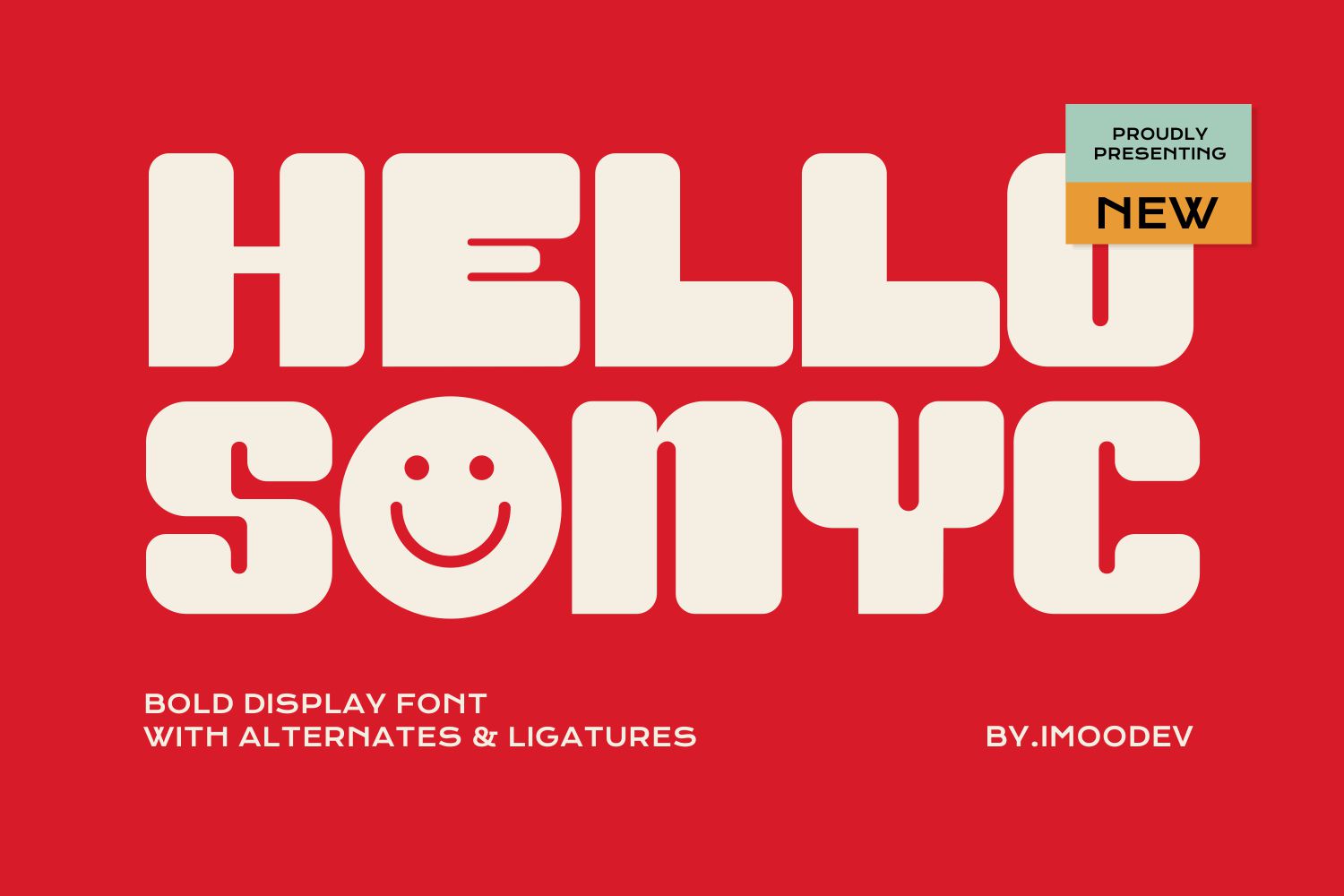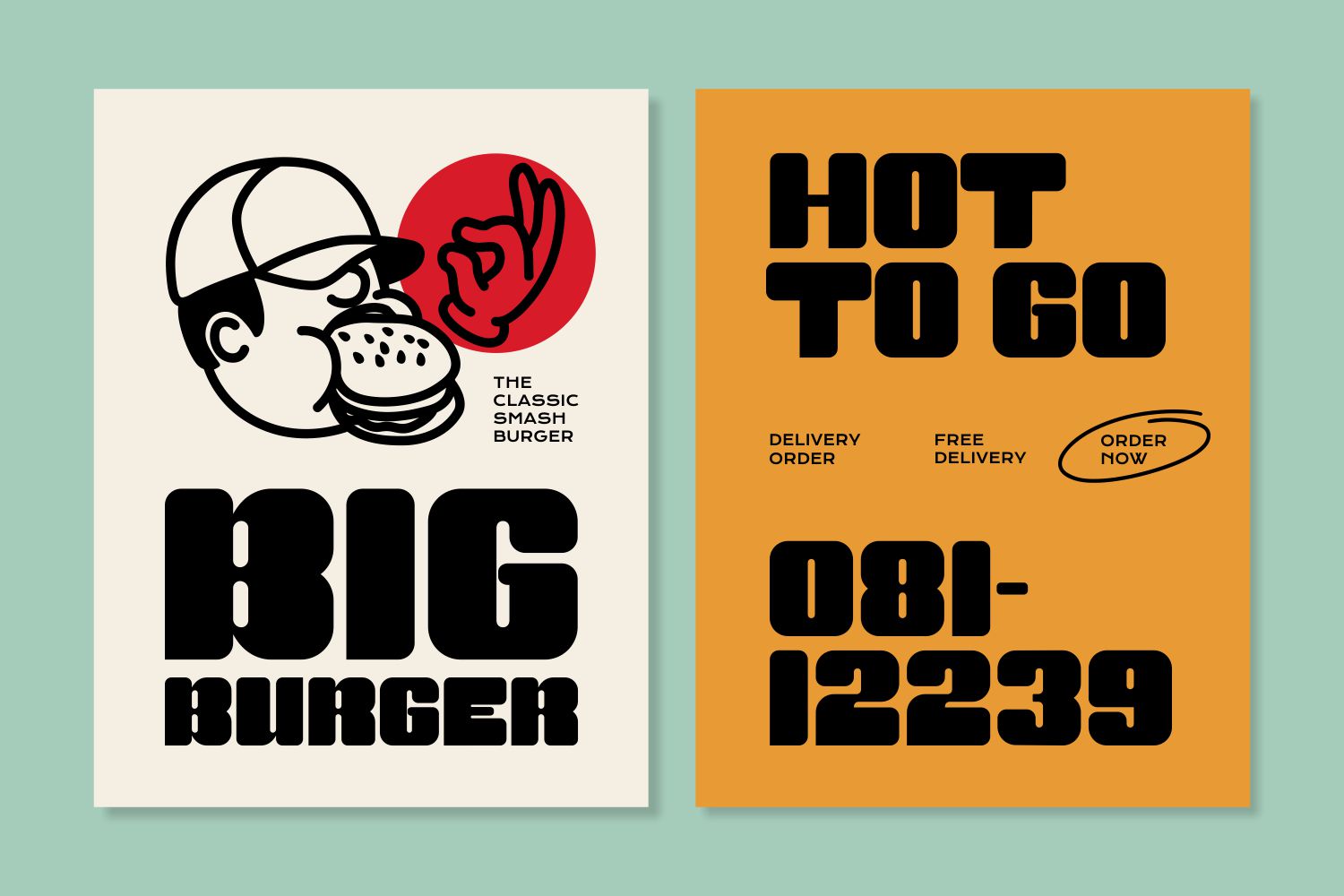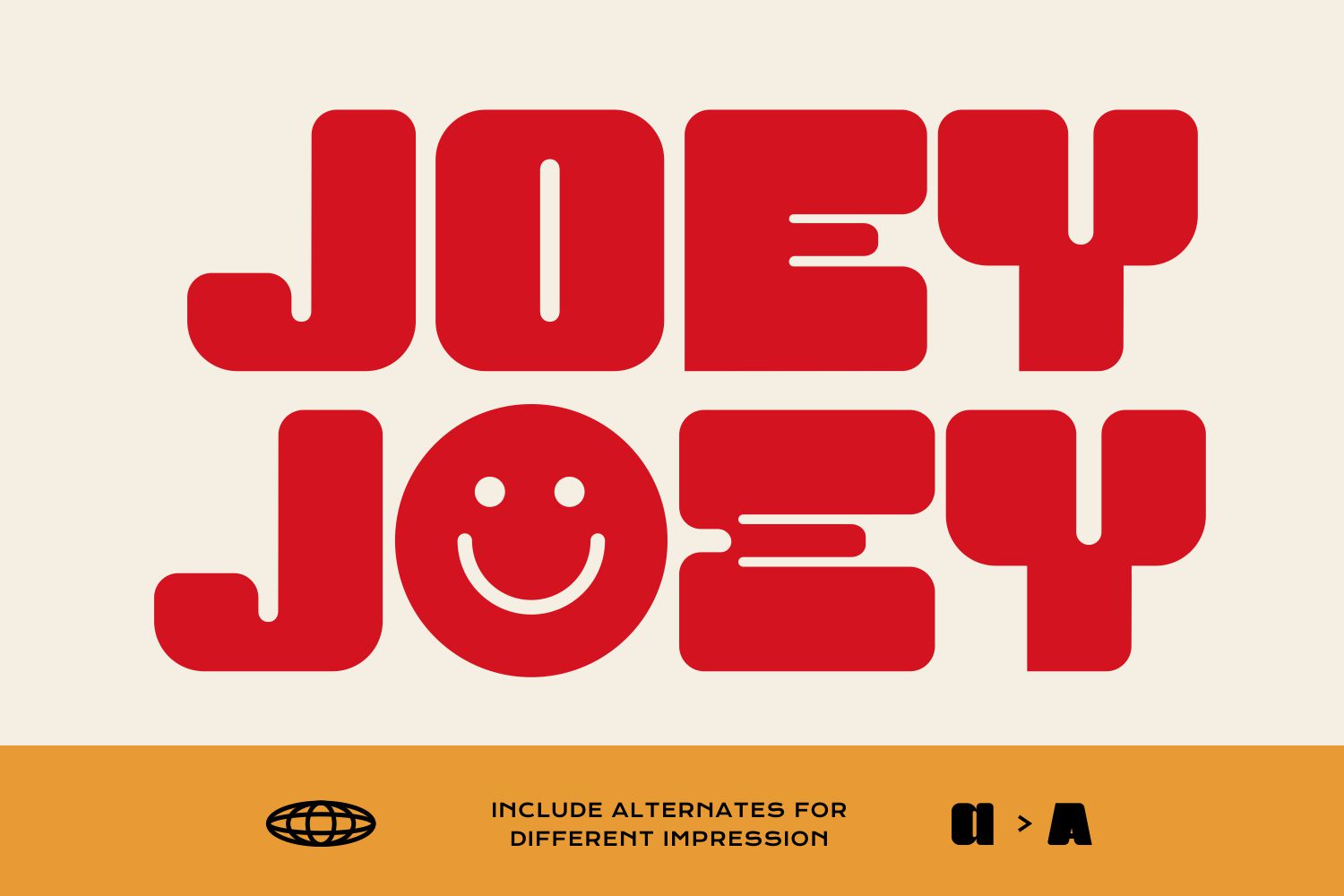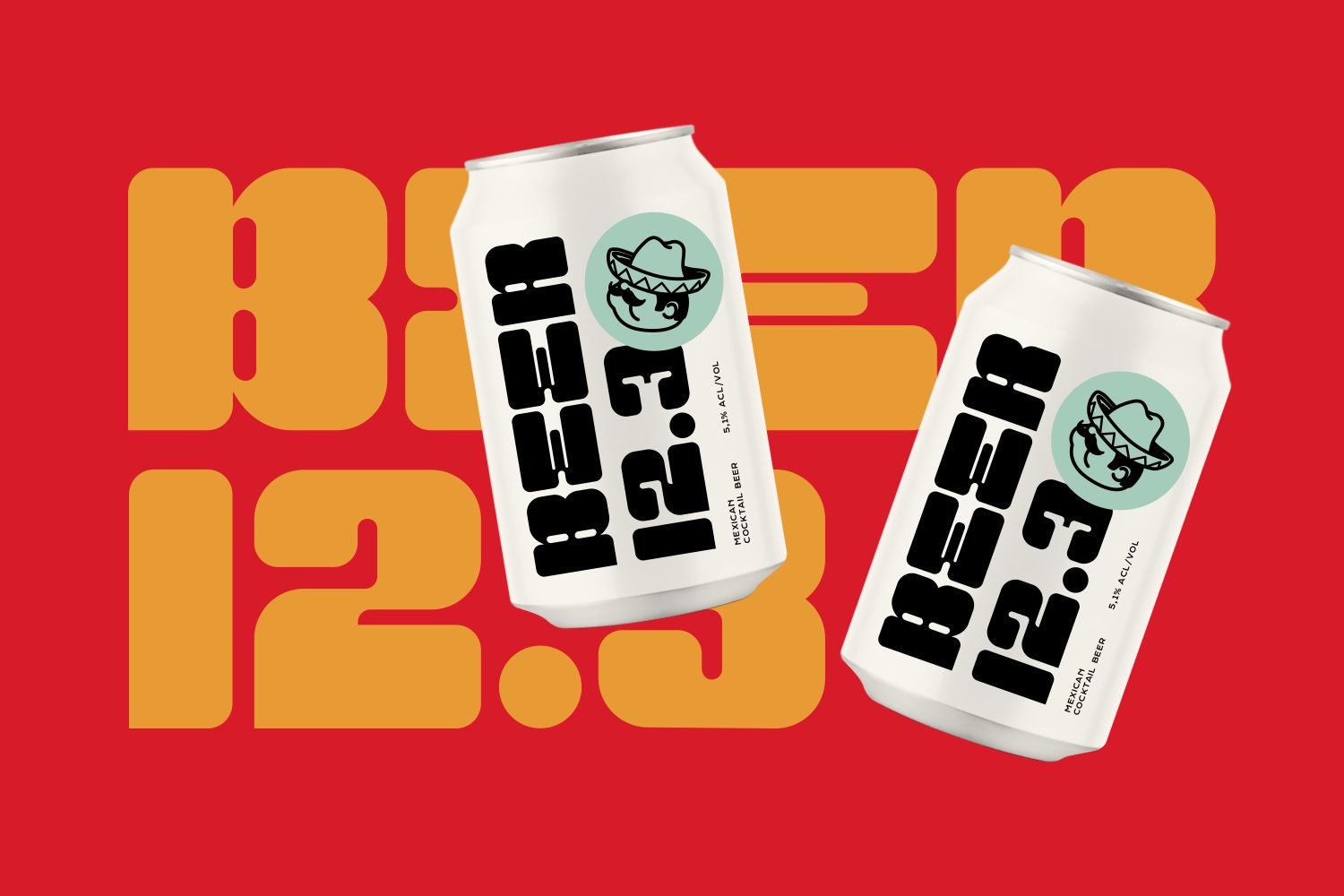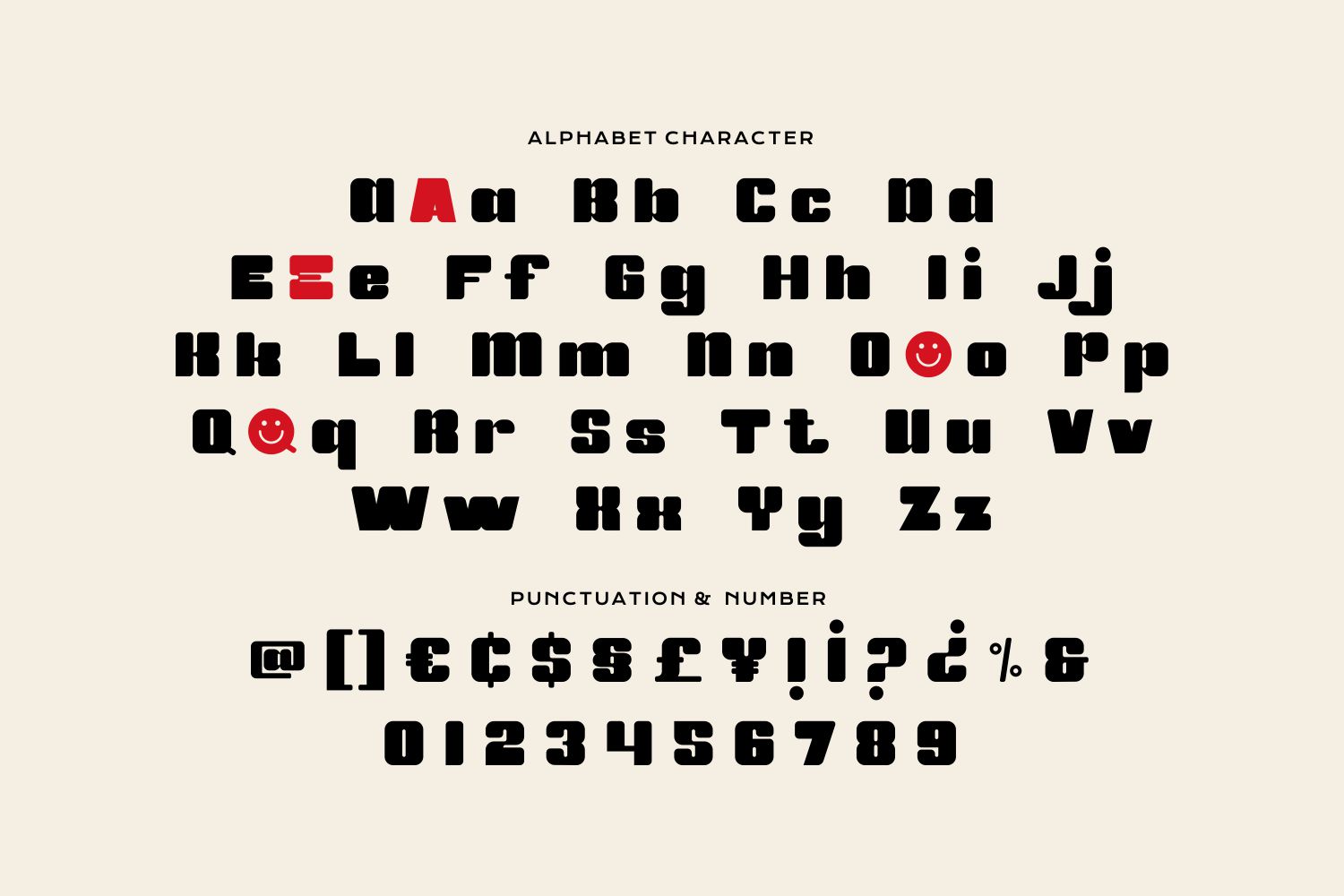
The Hello Sonyc font is a bold and playful display typeface that radiates a retro yet modern vibe. With its rounded corners, geometric structure, and quirky alternates, this font captures attention instantly and works perfectly for eye-catching headlines, branding, posters, and packaging. The addition of unique ligatures and fun alternates, such as the smiley face character, makes it stand out as a font full of personality and charm. Its versatility allows designers to create a wide range of looks, from cheerful and fun to bold and powerful—depending on the context.
Designed with a balance of thickness and smooth curves, Hello Sonyc offers a strong visual impact without losing its playful nature. This font is ideal for creative projects in food and beverage branding, lifestyle products, streetwear, music covers, and advertising campaigns. With its bold presence and character-driven design, Hello Sonyc ensures that every project communicates energy, friendliness, and a contemporary edge.